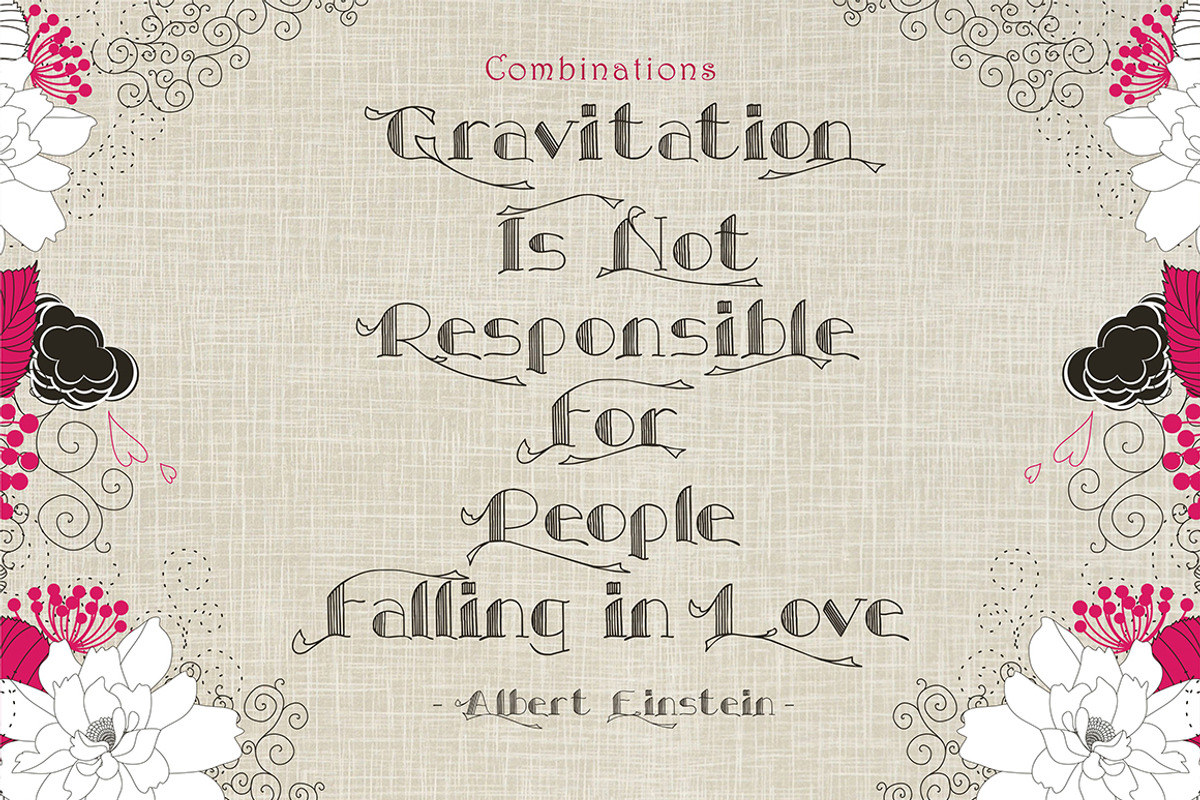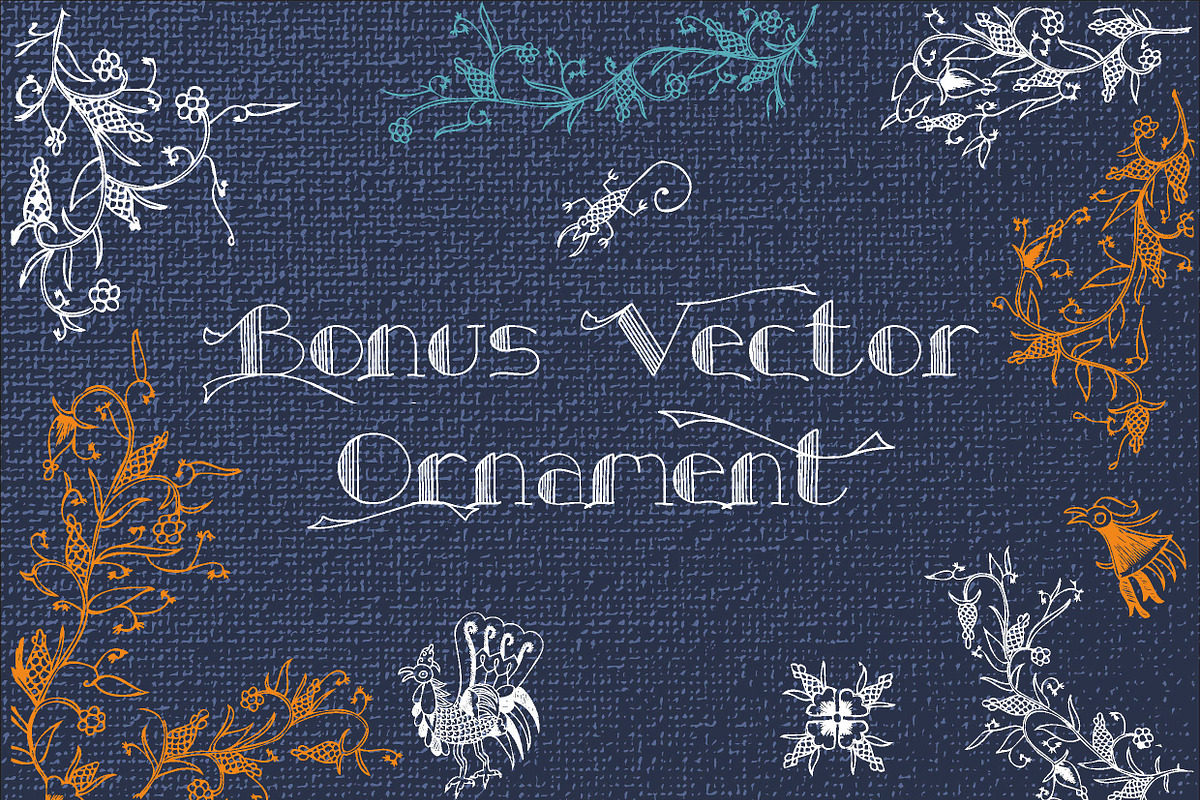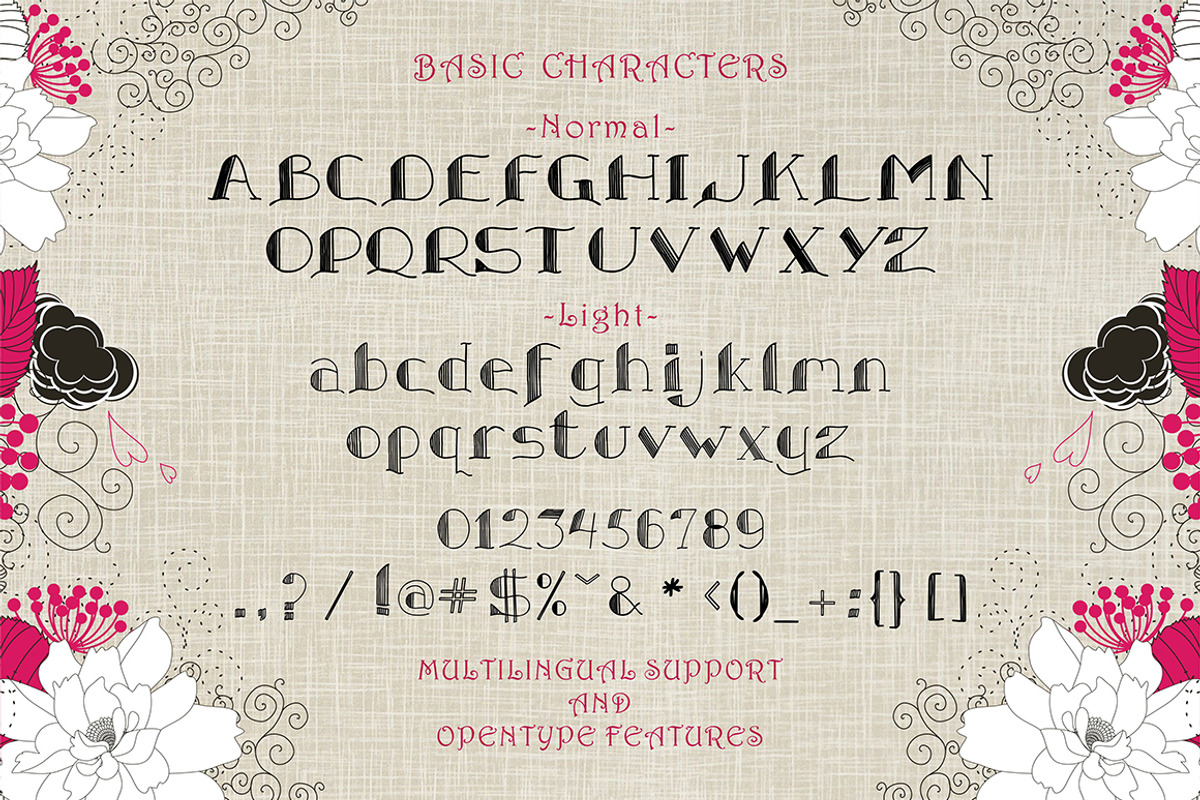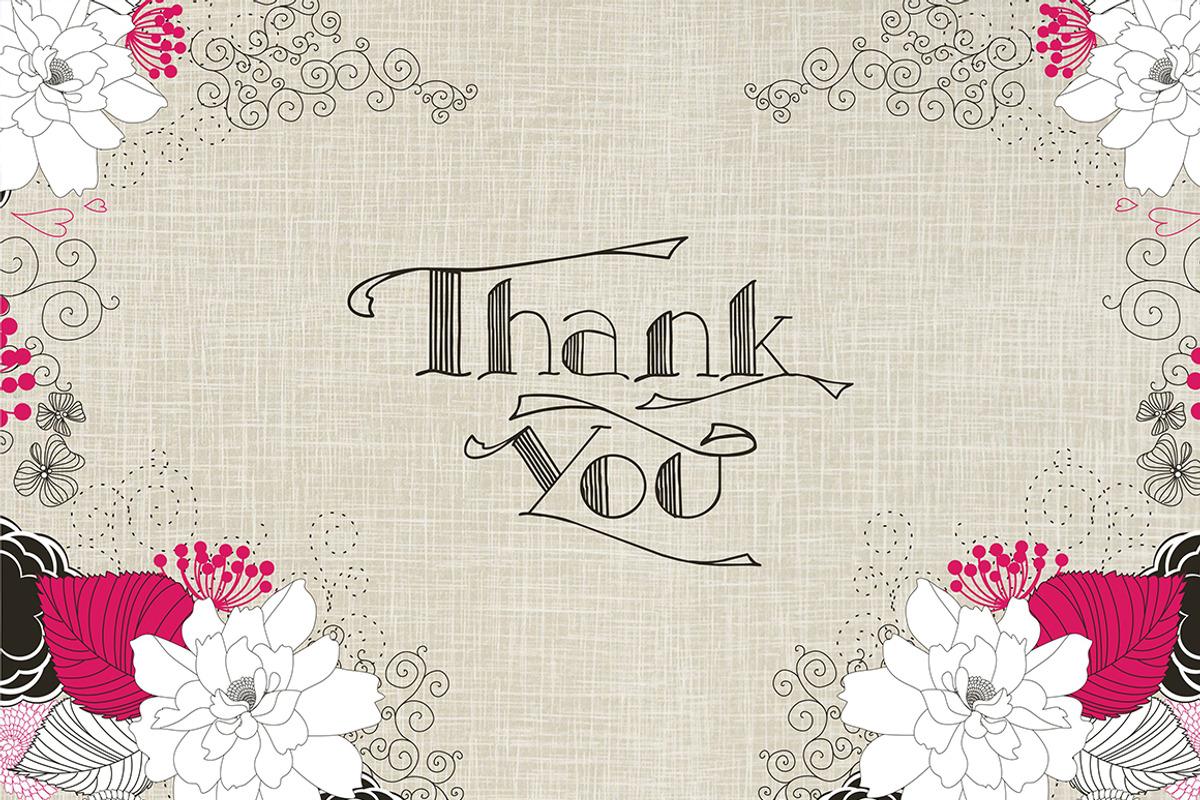
Greywing font
Greywing font by marsa's is a font selected for branding, posters, packaging, typography.
- Greywing Thin
- Greywing Normal
Why Greywing font is worth a look
Greywing font by marsa's fits naturally into Branding, posters, packaging, typography.